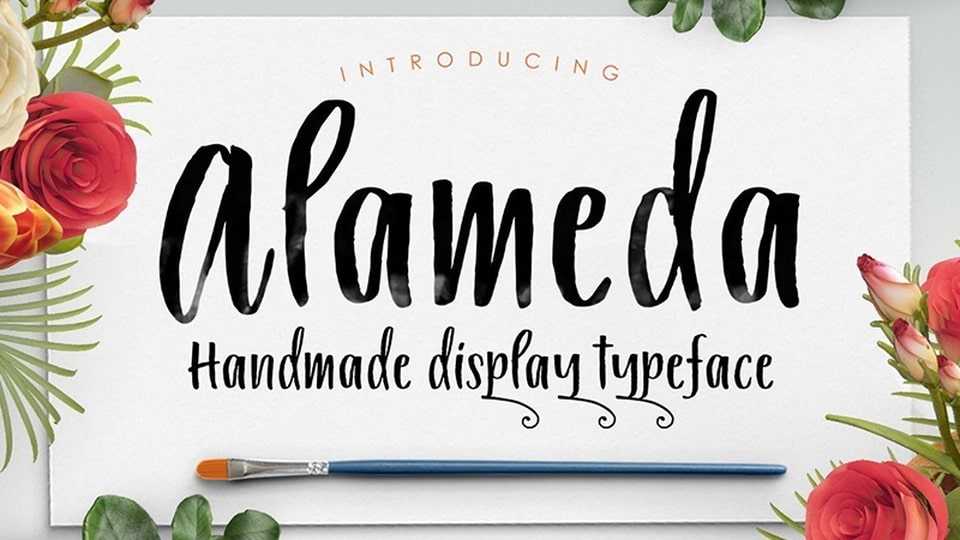
Download Alameda font, a modern and interesting handwritten brush script. Masterfully designed to become a true favorite, this font has the potential to bring each of your creative ideas to the highest level